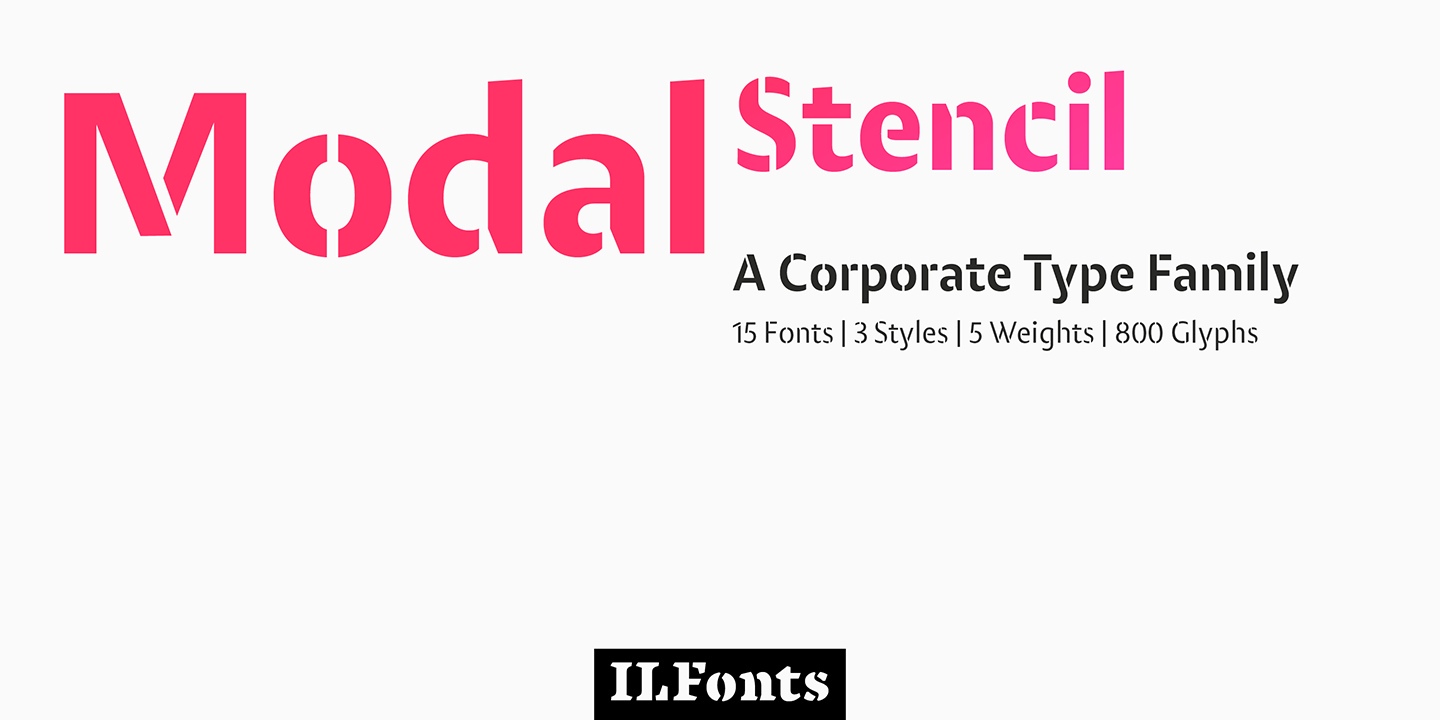
Modal Stencil Font
Modal Stencil Font is perfect for military-themed branding, industrial signage applications, shipping container markings, warehouse identification systems, military equipment labeling, tactical gear packaging, street art projects, urban graffiti designs, stencil-based artwork, protest signage, DIY project templates, and utilitarian projects that require authentic, stencil-cut typography with industrial strength and military precision.
What makes Modal Stencil Font so exciting is its authentic stencil construction and industrial functionality that embodies the practical efficiency and systematic precision of real-world stencil applications in military, shipping, and industrial environments. This typeface features distinctive letterforms with characteristic stencil breaks and utilitarian proportions that create immediate recognition and ensure optimal functionality when used for actual stencil cutting and spray-paint applications. The font's industrial character and military appeal make it perfect for tactical brands and utilitarian projects that need typography as robust and functional as the environments where stencils are essential tools.
Modal Stencil Font typically comes in multiple weights and styles including Light, Regular, Medium, Bold, and Black variations. Many versions also include stencil-appropriate symbols, military ornaments, and industrial decorative elements that enhance the font's utilitarian functionality and provide designers with comprehensive tools for creating authentic, stencil-ready typography compositions that work in real-world stencil applications.
Execute with precision using the industrial strength of Modal Stencil Font Free Download. This utilitarian typeface brings together authentic stencil construction with contemporary design functionality, making it an essential tool for military organizations, industrial companies, and street artists who need typography that functions perfectly as actual stencils while maintaining professional visual impact. The font's stencil character ensures your tactical projects will convey industrial authenticity and military precision.
Whether you're designing military communications, industrial signage, or street art projects, Modal Stencil Font delivers exceptional stencil authenticity and utilitarian functionality that connects with audiences who appreciate practical design and industrial efficiency. Its characteristic stencil breaks work exceptionally well in both actual stencil applications and digital designs that need to communicate tactical reliability and industrial strength.
The functionally engineered letterforms of Modal Stencil Font showcase the ultimate expression of stencil typography and utilitarian design principles. Each character has been constructed with authentic stencil breaks while maintaining excellent readability and practical functionality, ensuring that your industrial communications work perfectly as both digital typography and physical stencil templates for real-world marking and identification applications.